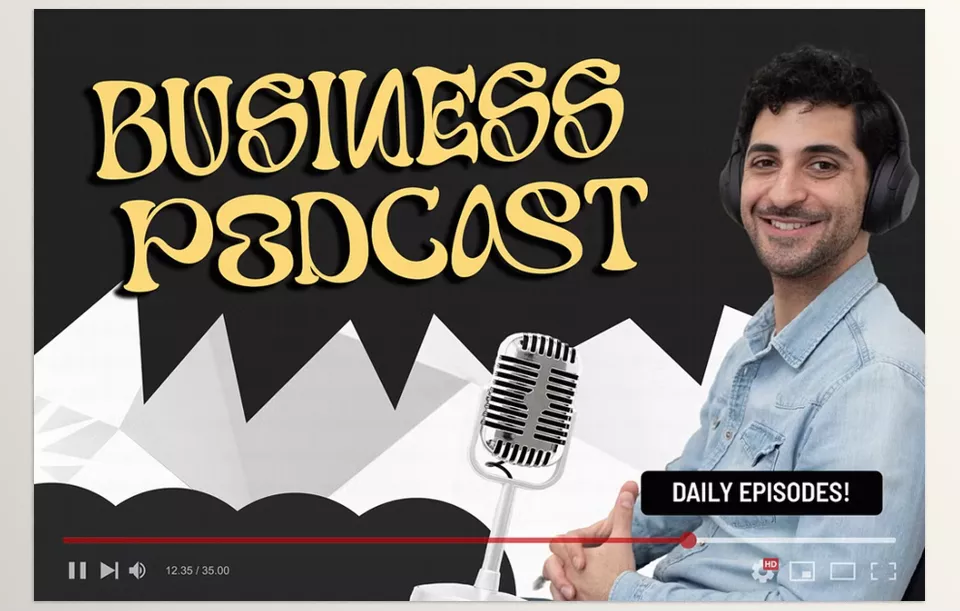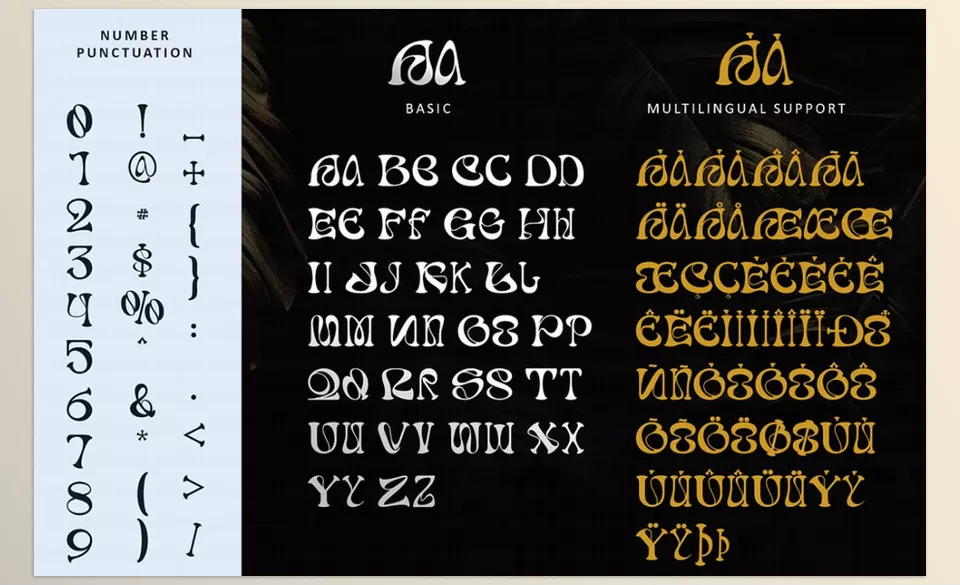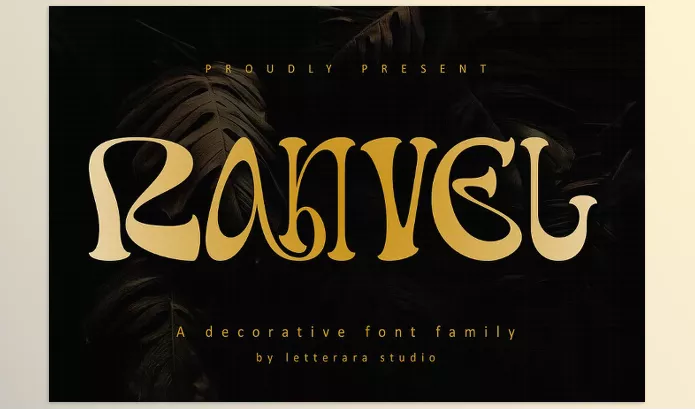
Font – Ranvel Font by Letterara – Download
Creative Market – Ranvel Font is a blend of contemporary and traditional design. This elegant refined serif typeface is offered in Regular, Italic, Bold and Bold Italic styles, which makes it perfect for sophisticated typography like branding luxury items, book covers, and editorial design. Great for both striking headlines and delicate invitations, with graceful serifs and PUA encoding for glyphs making it easy to add class to any project.
Letterara – Ranvel Font Features
• An assortment of Regular and Italic, Bold and Bold Italic.
• Characters from various languages and dialects.
• Lowercase and uppercase letters, numerals, and punctuation.
• Add alternate characters, swashes, and ligatures to create custom designs.
Image 1: Luxe branding is made easy with this typeface, which was designed specifically for luxury labels.
Image 2: This versatile serif font can be used to create beautiful editorial layouts.